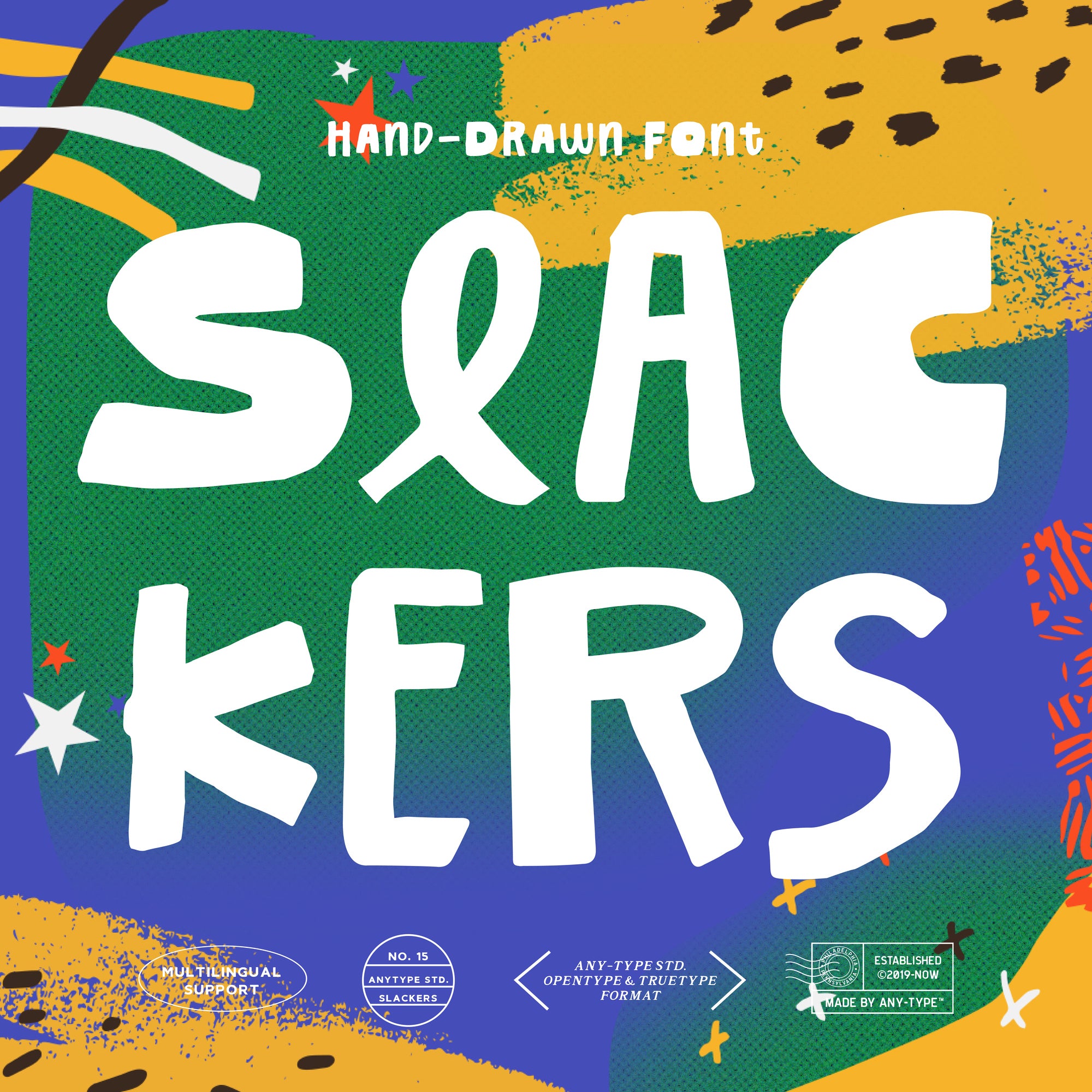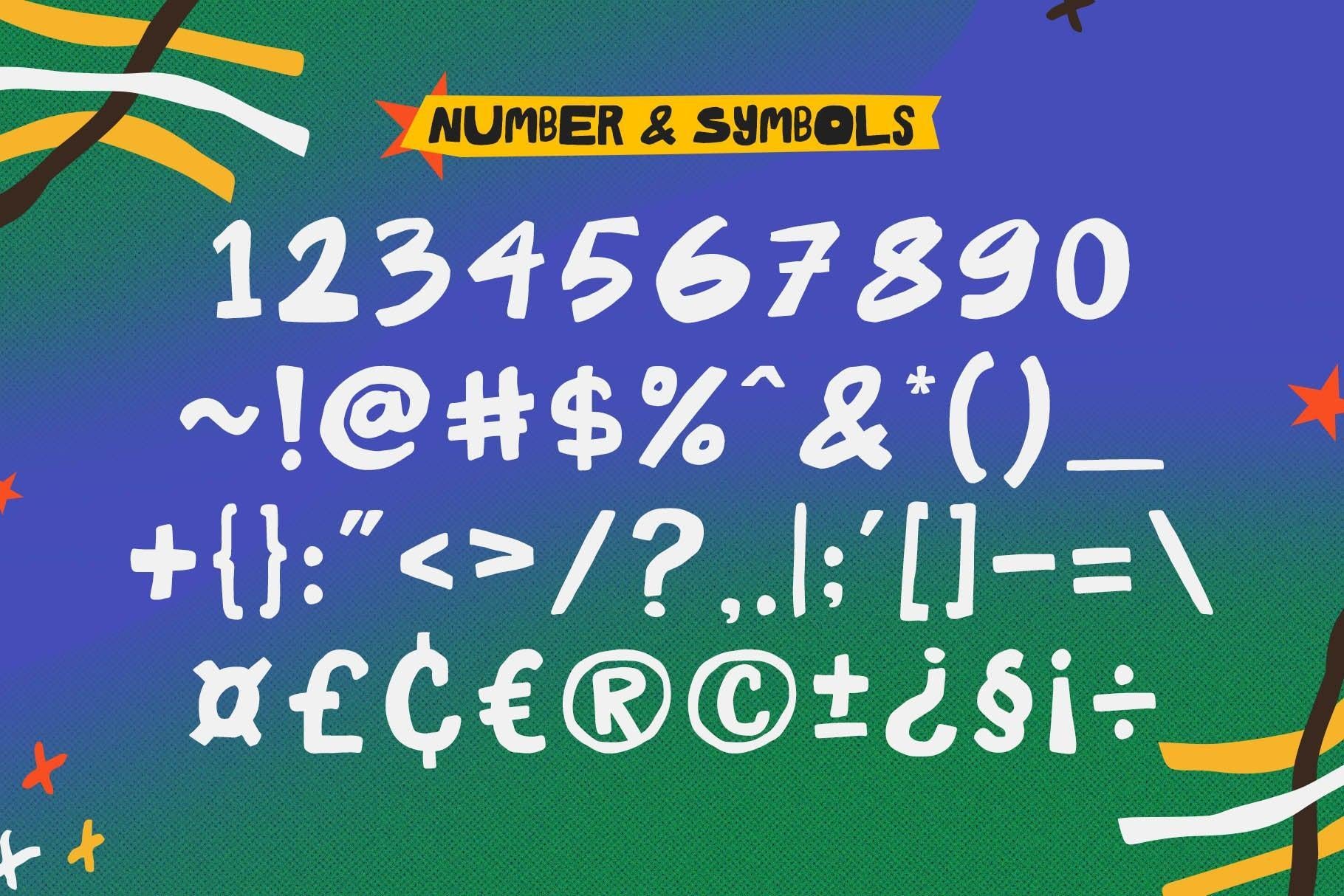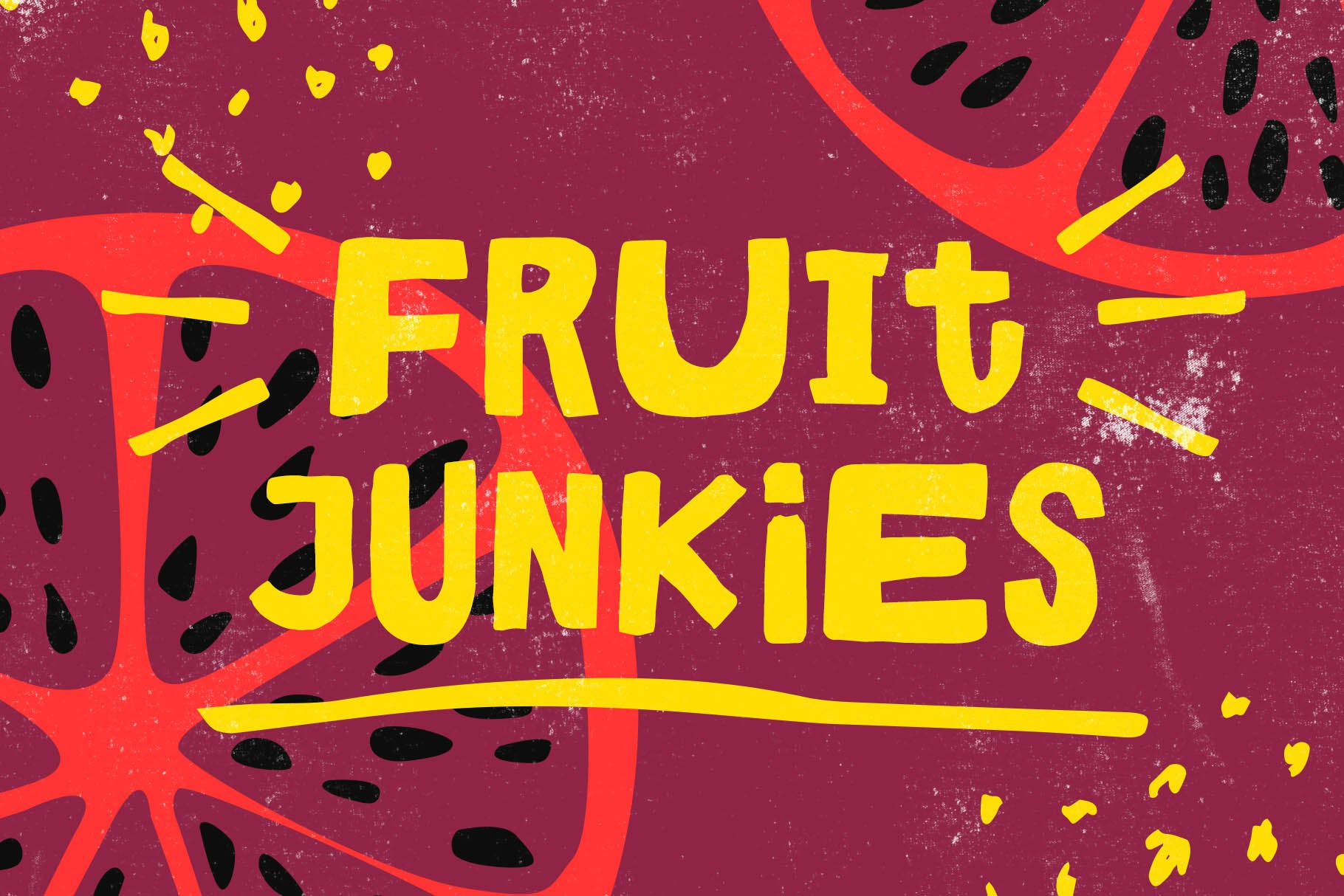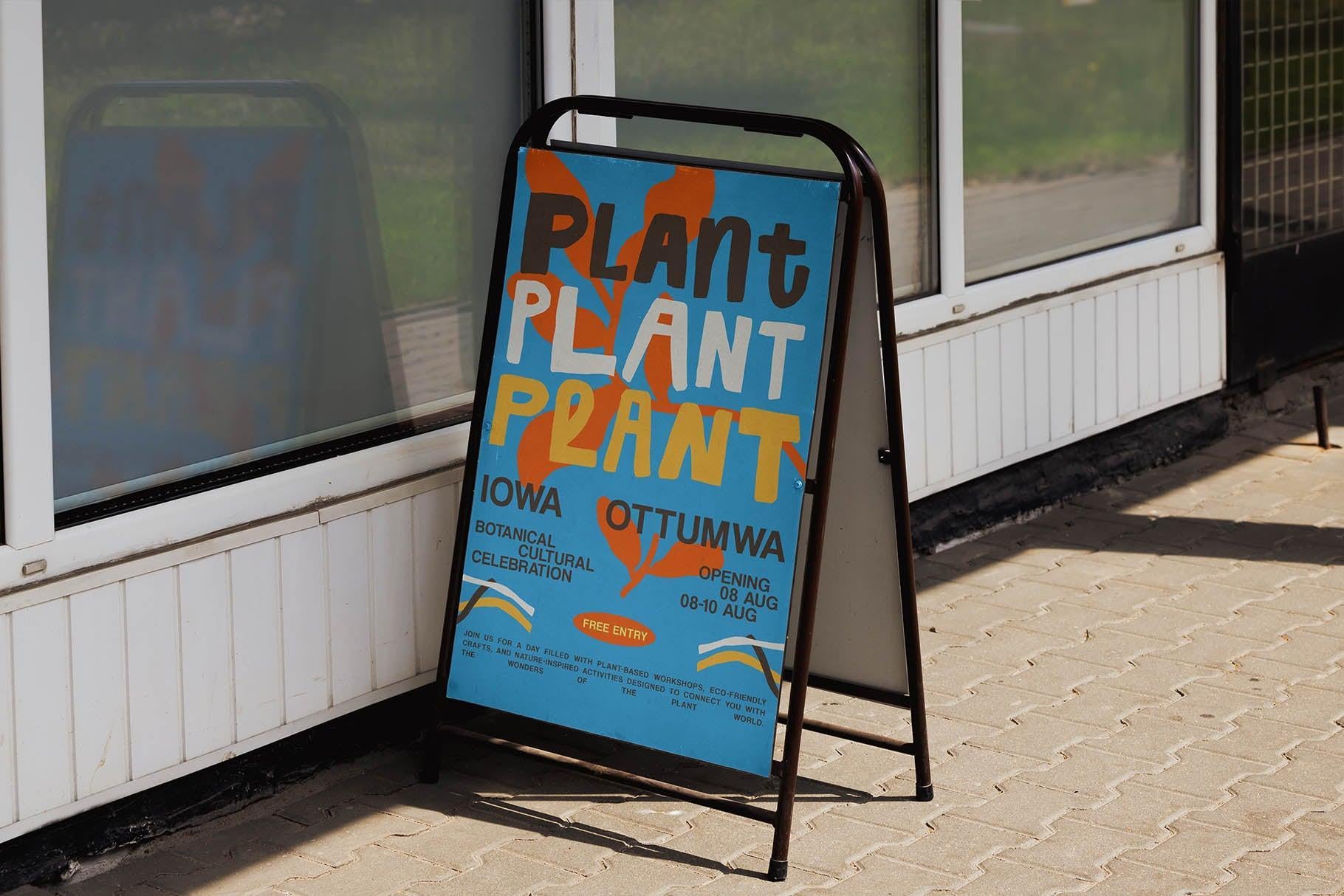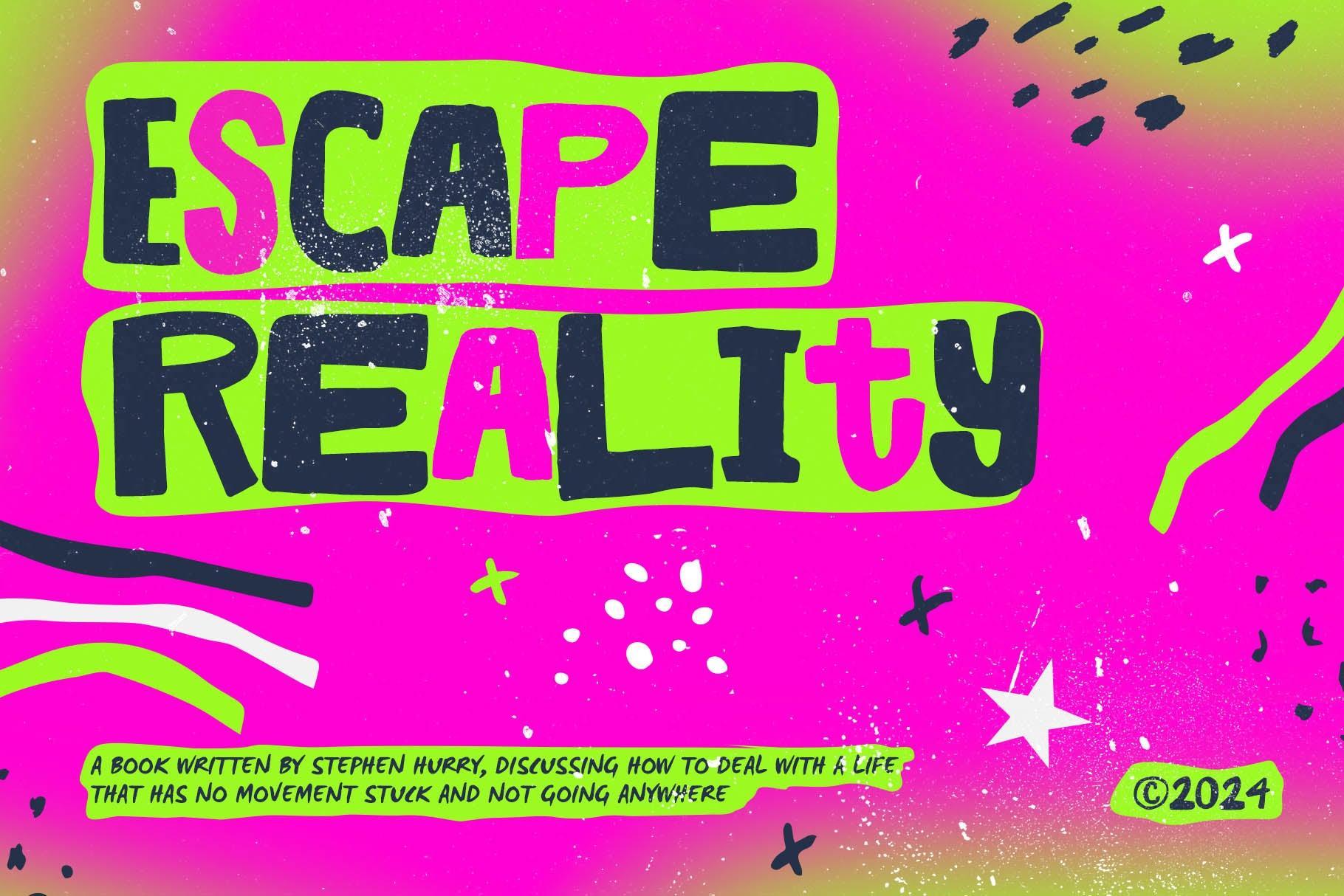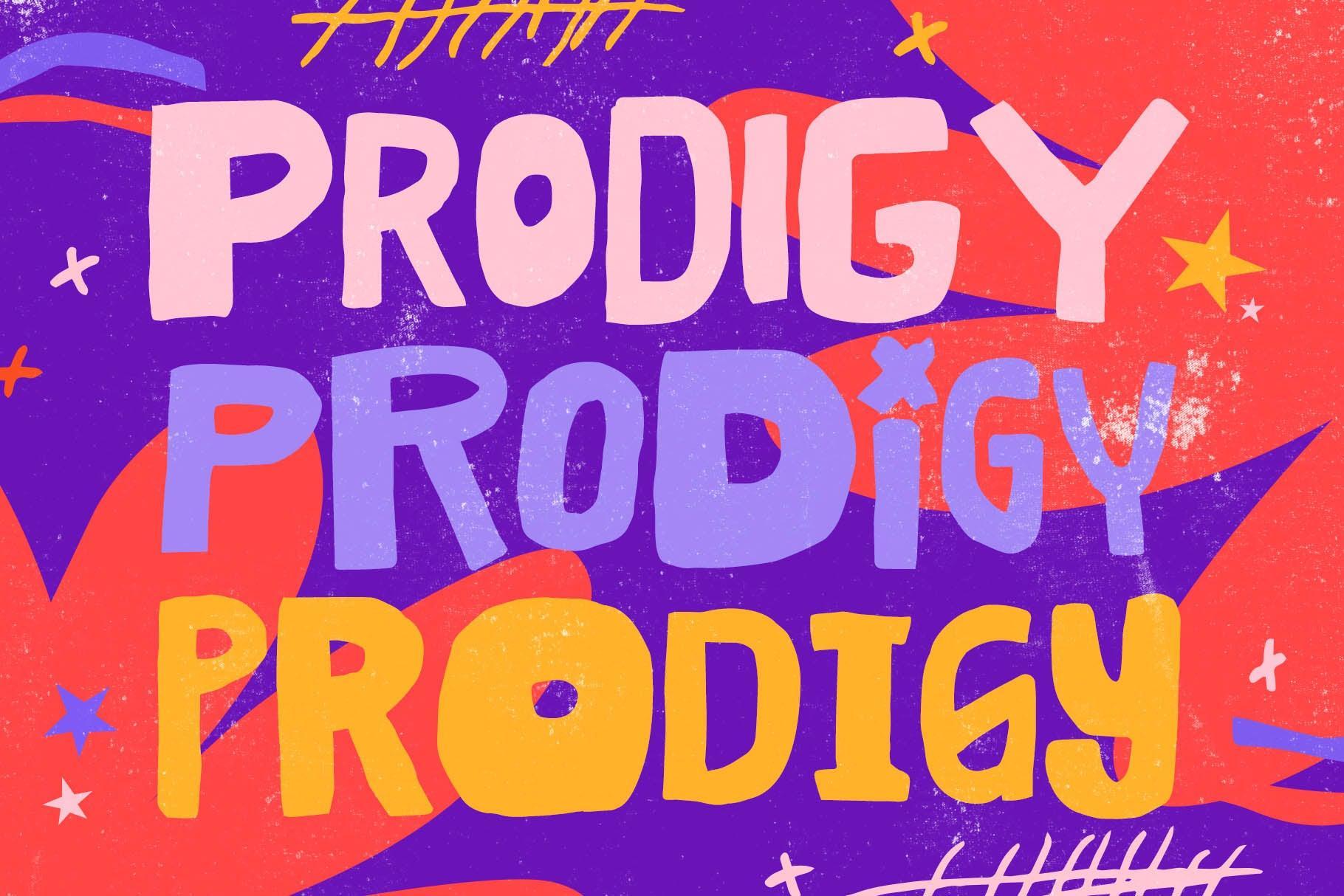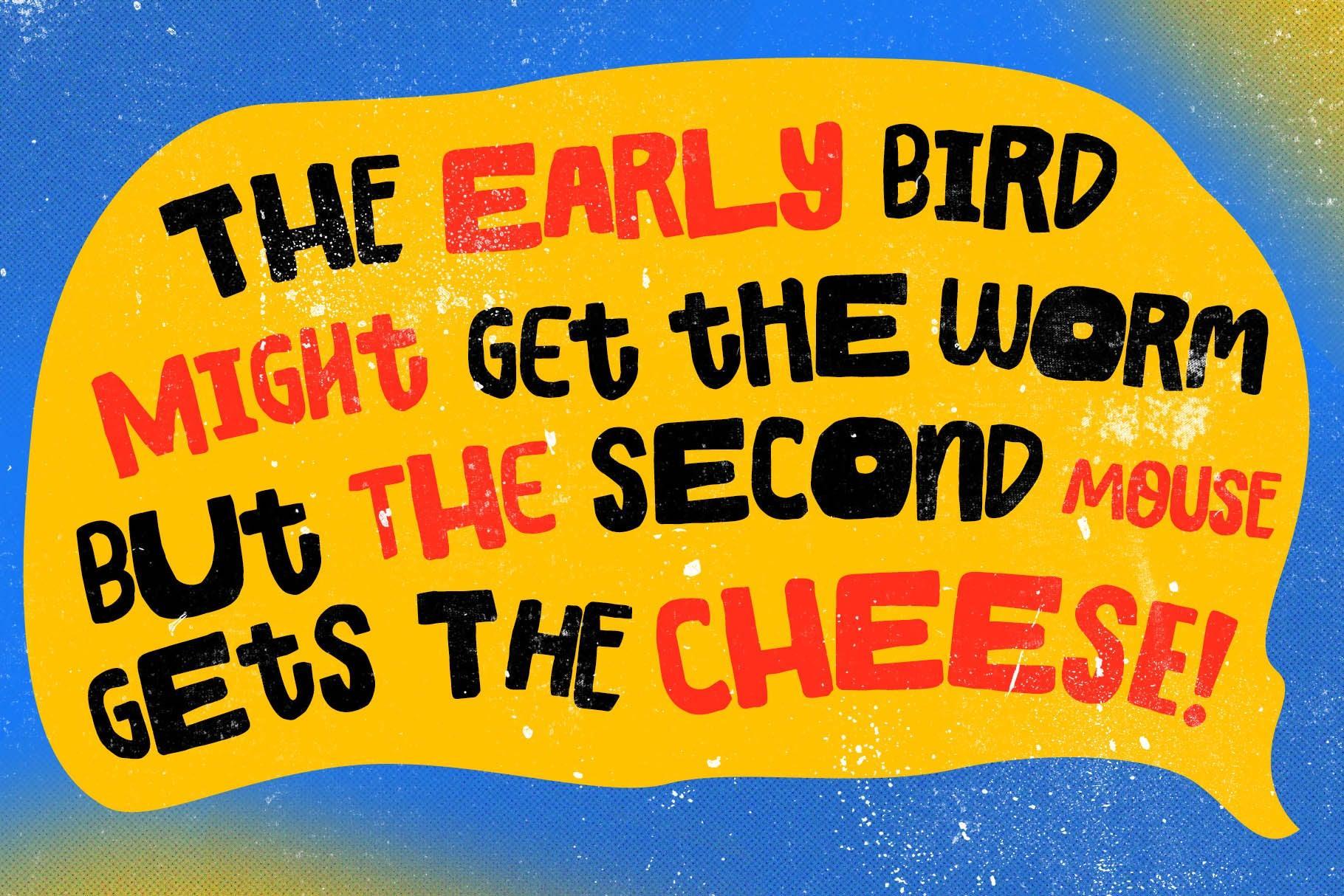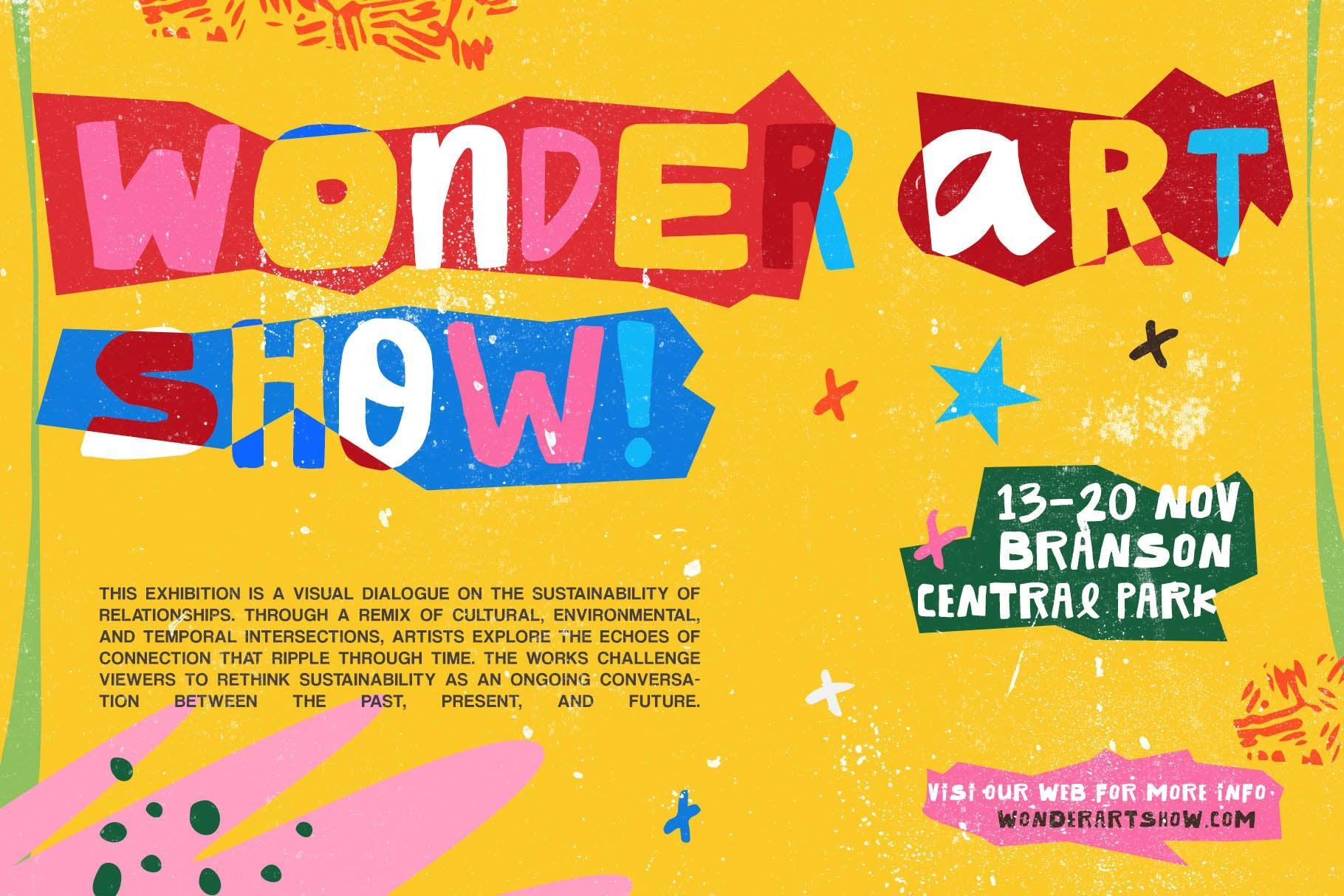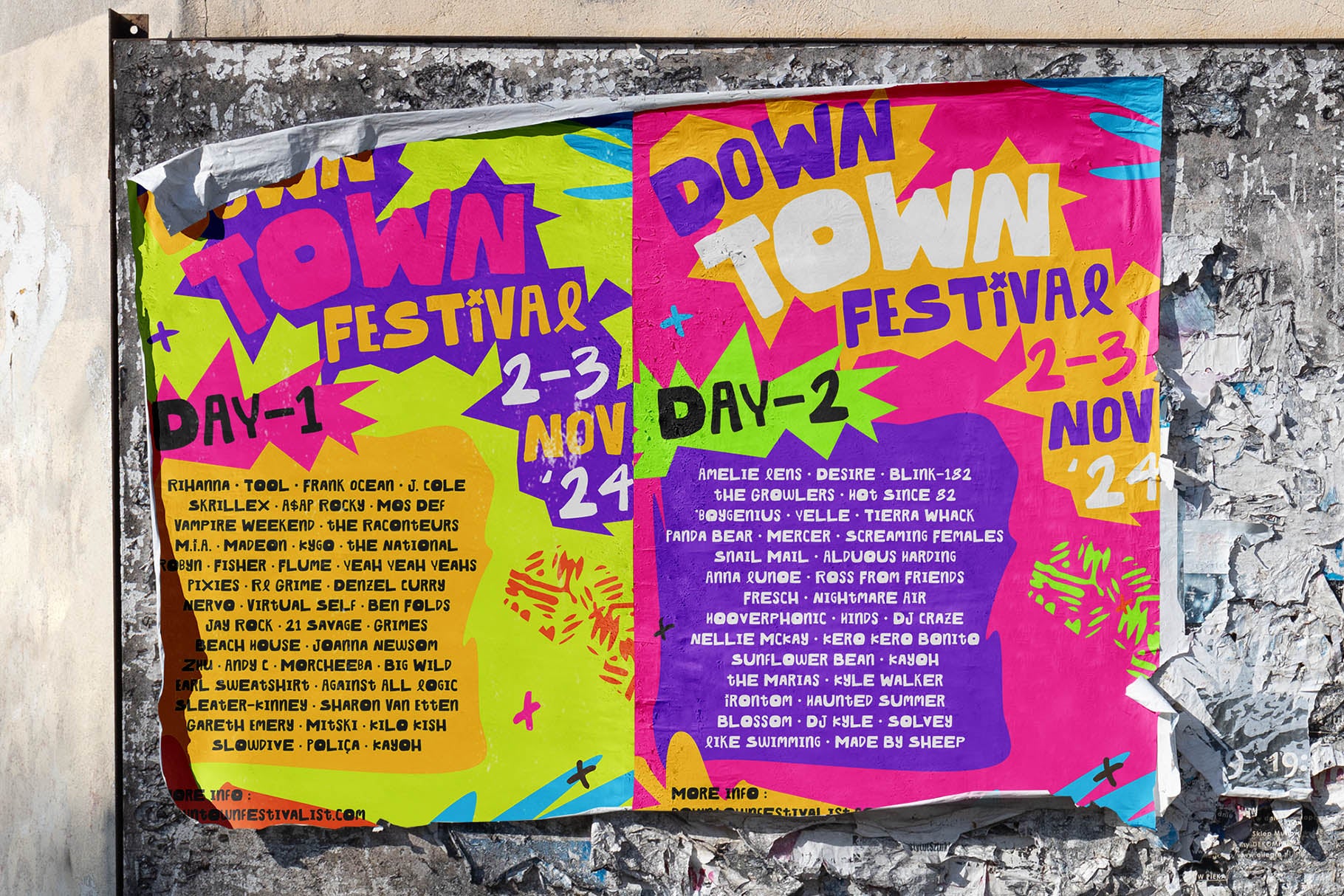
Slackers Rough Font
Slackers Rough Font is a handmade vintage sans font inspired by classic western culture and custom motorcycle aesthetics. It includes OpenType and TrueType features, webfont format, multilingual support, and offers numerous alternate characters for versatile design options.
Any-Type® Foundry